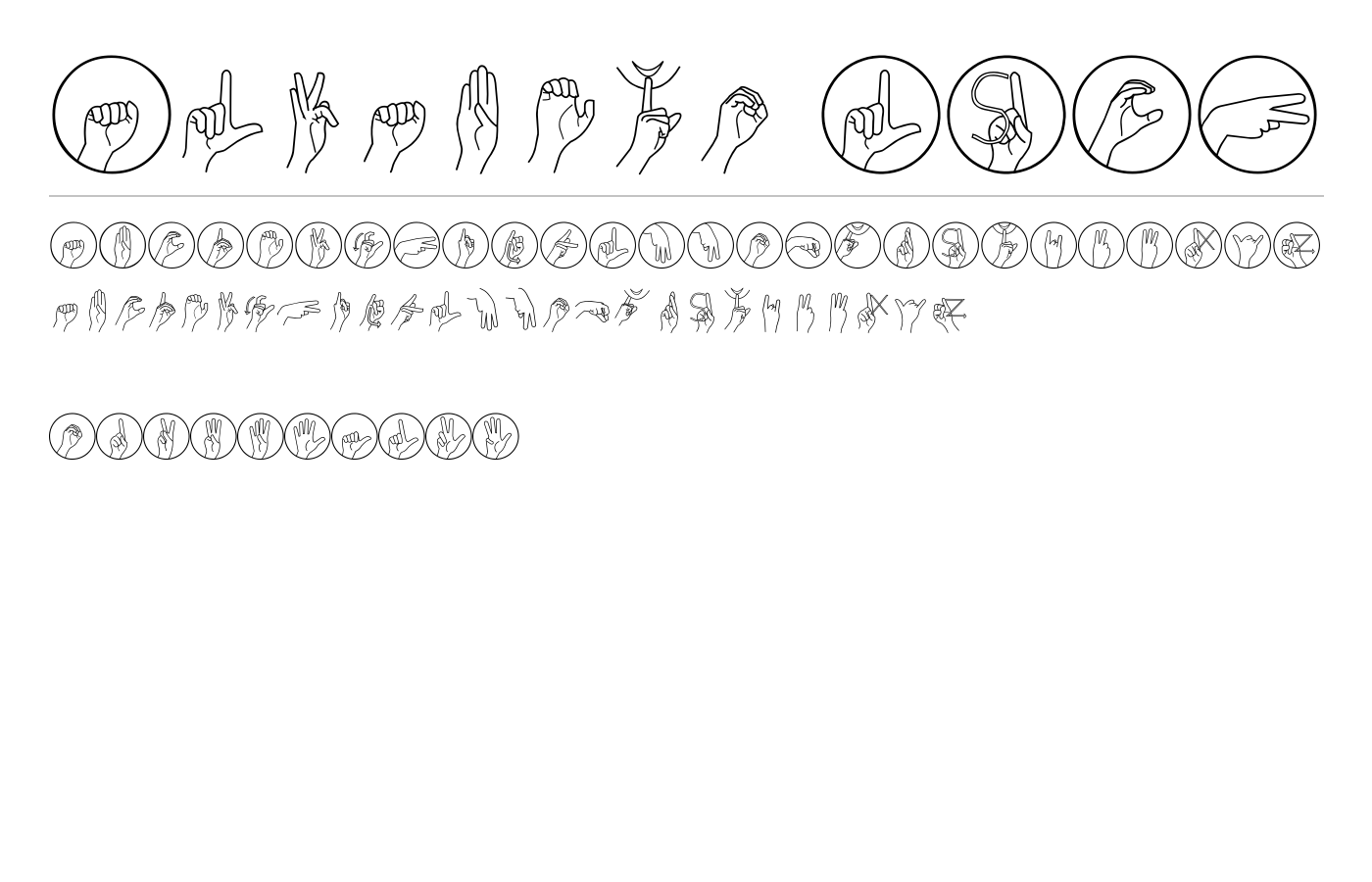
Alfabeto LSCH is a unique symbol-based font that creatively represents the alphabet through detailed line art of hand signs, resembling sign language gestures. Its clean, minimalistic outline style and consistent line weight give it a modern, approachable feel, making it perfect for educational materials, inclusive communication projects, and artistic designs that emphasize clarity and human connection. This font stands out in contexts where visual storytelling and accessibility are key, such as interactive media, awareness campaigns, and playful branding.
Alfabeto LSCH Font
About Alfabeto LSCH Font